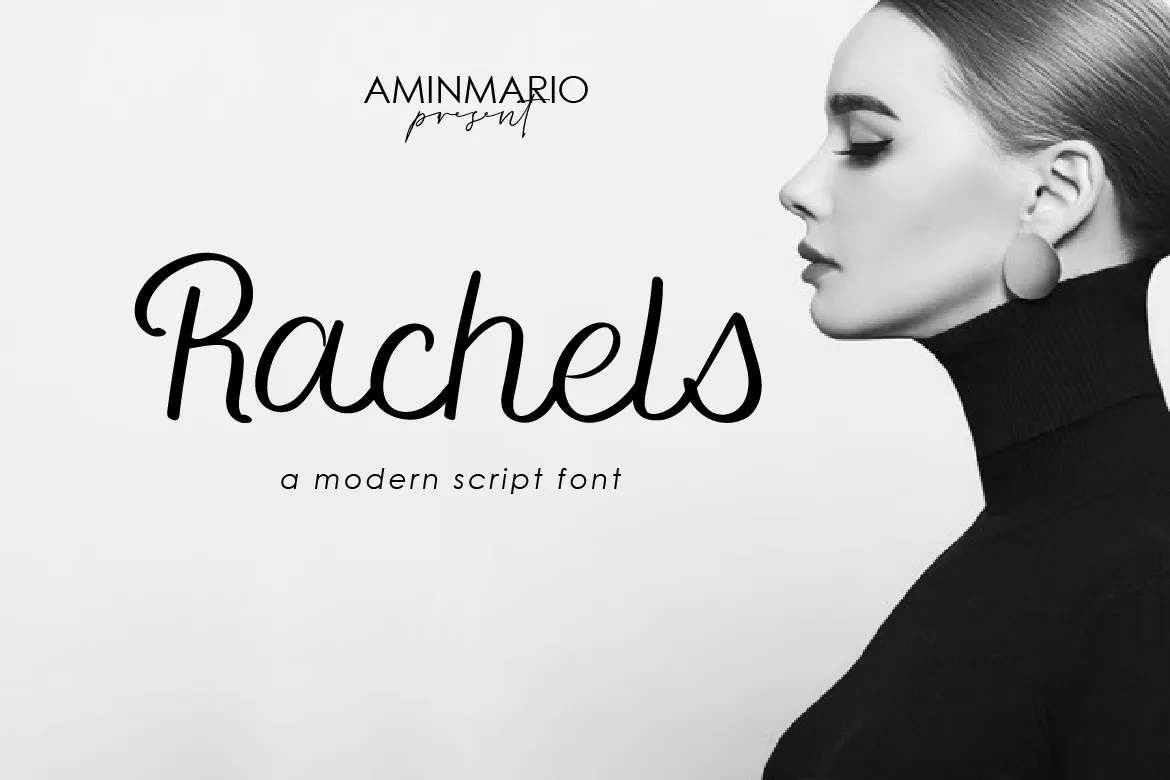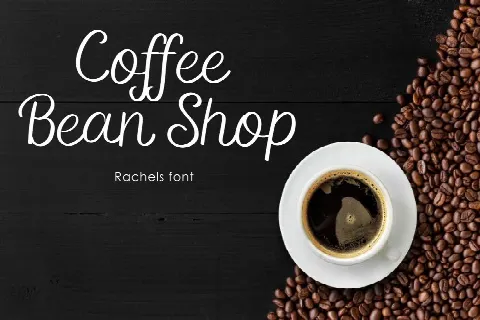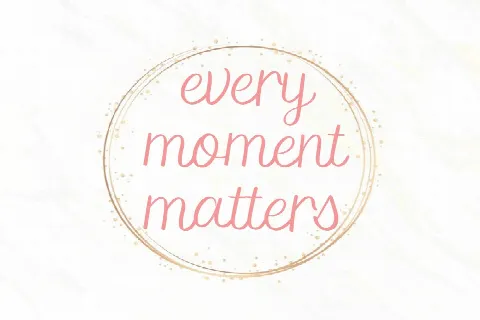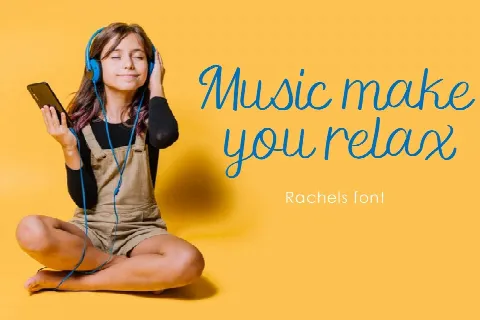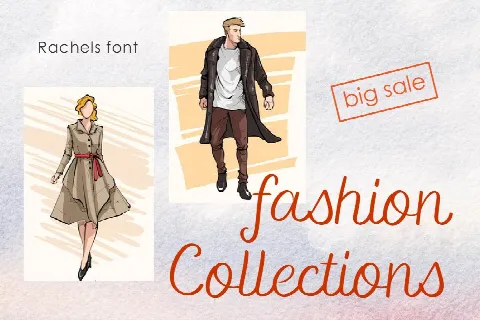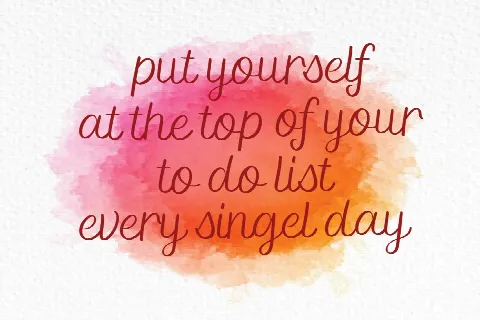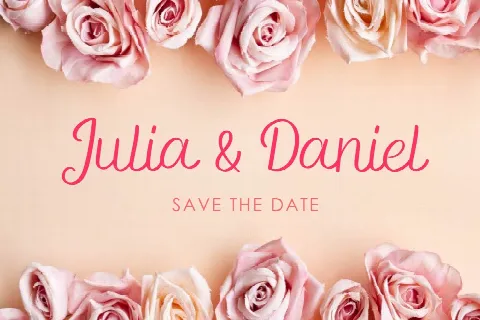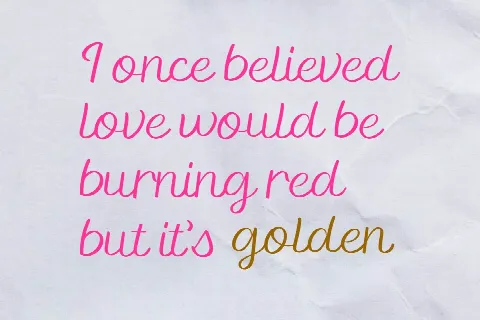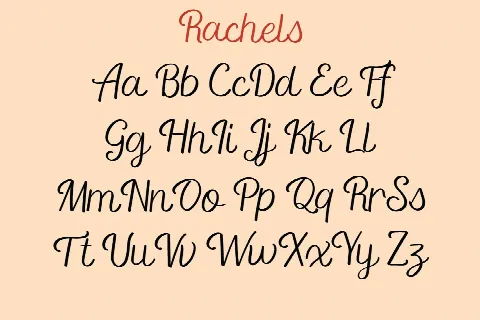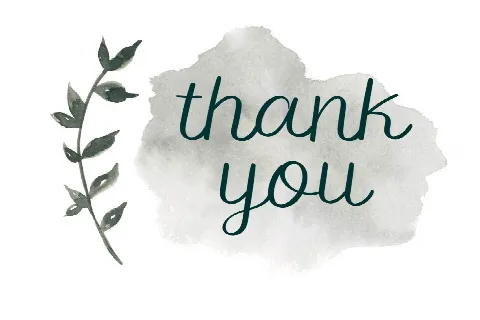
Rachels
Rachels is a modern script, full of personality and curves. This font was designed to give natural handwritten look in a digital world. Perfect for any awesome project that need hand writing taste. And good for pairing with Sans or Serif.
This is suitable for quotes, invitations, stationery, wedding design, logos, watermarks on photography, signatures, branding, advertisement, album covers, business cards, clothing, magazines, posters, and more! Also support multilingual.Thanks for checking out this font. I hope you enjoy it!